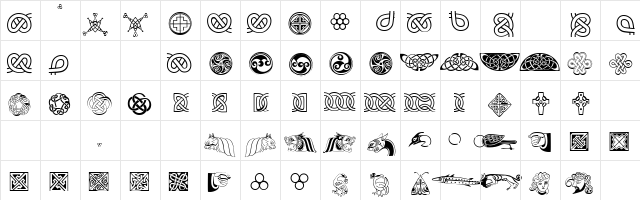
Kells Extras
Design Context for Kells Typeface
Kells is a composed and adaptable typeface that performs quietly and consistently across a wide range of design contexts.